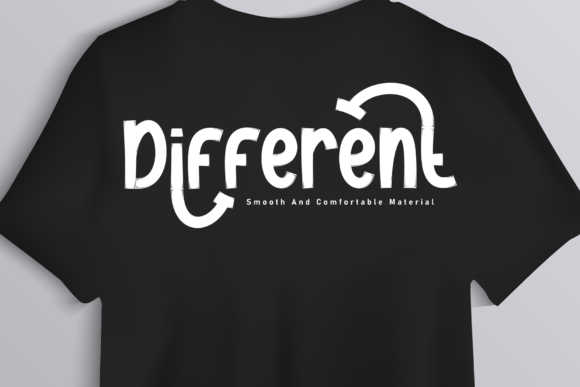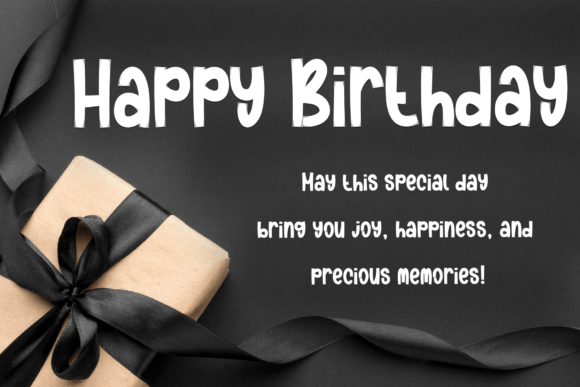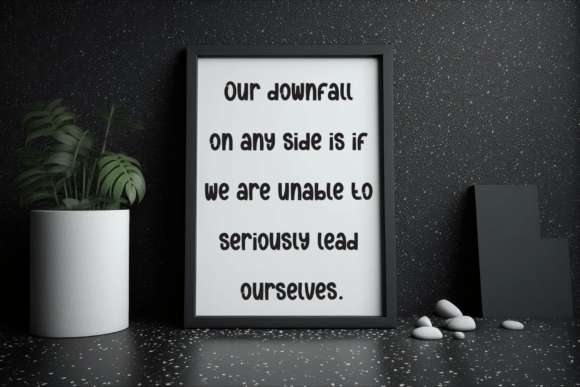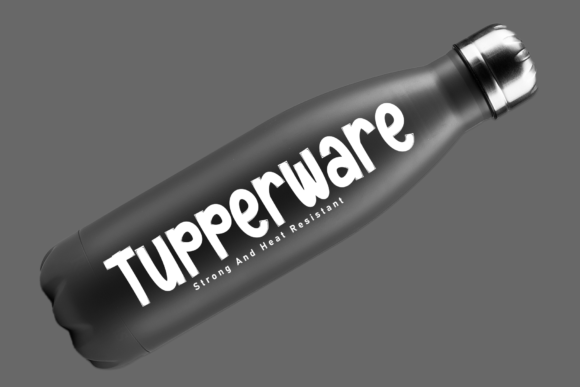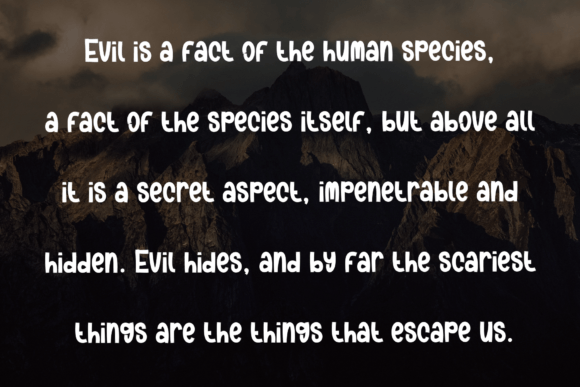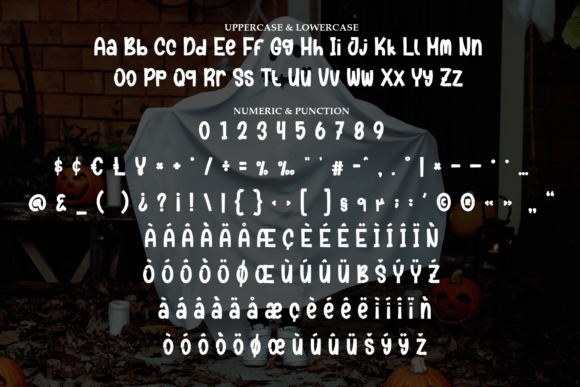
Introduction to Smile Ghost Font
As designers, we’ve all been there – staring at a blank canvas, trying to conjure up the perfect visual to capture the essence of our creative vision. But sometimes, all it takes is the right font to bring our ideas to life. That’s where the Smile Ghost Font comes in – a stylish and versatile tool that adds a touch of romance and elegance to any project.
With its transparent background and high-quality design, the Smile Ghost Font is a valuable resource for designers looking to elevate their creative projects. Whether you’re working on a greeting card, a headline, or a full-fledged design campaign, this font is sure to add a unique and sophisticated touch. And the best part? It’s available for free download, making it an accessible design resource for designers of all levels.
So, what sets the Smile Ghost Font apart from other design tools? Its ability to seamlessly integrate into a wide range of applications, from digital media to print materials, makes it an invaluable asset for designers who want to take their work to the next level.
Key Features of Smile Ghost Font
- High-quality design for creative projects: Smile Ghost Font is designed to provide a unique and eye-catching look for your designs, making it perfect for creative projects.
- Transparent background: This font features a transparent background, allowing for seamless integration with any design or image.
- Unique and creative design: Smile Ghost Font features a unique and creative design that is sure to stand out in any design project.
- Perfect for design resources: Smile Ghost Font is an excellent resource for designers and artists, providing a high-quality and unique font for use in a variety of creative projects.
Honest Review: Smile Ghost Font
I recently had the chance to work with the Smile Ghost Font, and I must say it’s been a delightful addition to my design resource library. This font is perfect for creative projects that require a touch of whimsy and playfulness.
- What works well: ✨ The font’s unique design and high quality make it stand out from more generic fonts. It’s also free to download, which is always a bonus.
- What works well: ✨ The transparent background option allows for seamless integration with any background, giving you more flexibility in your design.
- ⚠️ Limited font sizes and styles: While the font is versatile, it’s not as comprehensive as some other font families.
- ⚠️ May not be suitable for formal projects: The playful design may not be suitable for more formal or professional projects.
Overall, I’m impressed with the Smile Ghost Font. It’s a great addition to any design library and can add a unique touch to your creative projects. Just be aware of its limitations and use it accordingly.
Tips for Getting the Most Out of Smile Ghost Font
Use the Smile Ghost Font in conjunction with other design elements to create a unique and creative project. Experiment with different font sizes, colors, and combinations to achieve the desired effect. Consider using the font with a transparent background to create a seamless design.
The Smile Ghost Font is ideal for use in a variety of creative projects, including social media graphics, blog posts, and advertising materials. Its high quality and transparent background make it a versatile design resource that can be used in a range of applications.